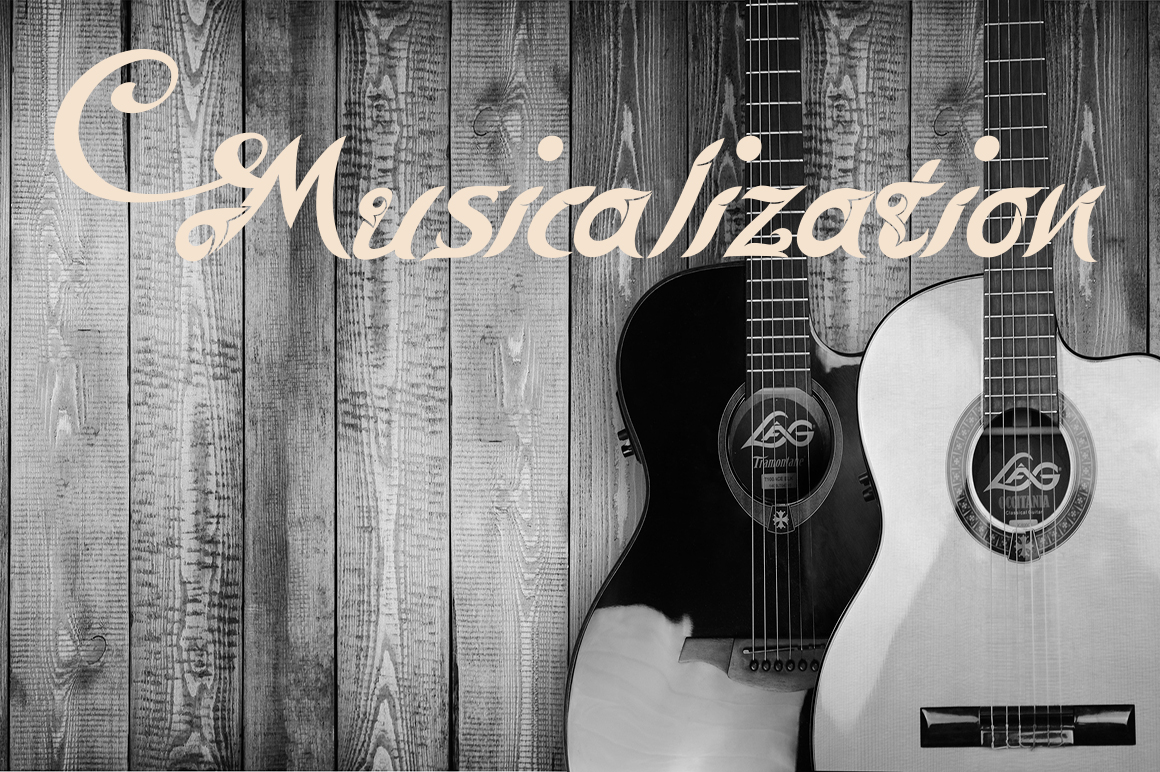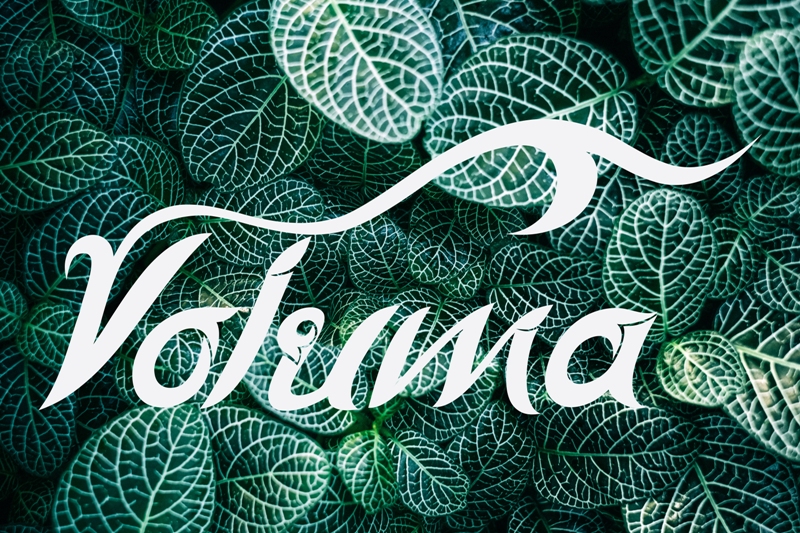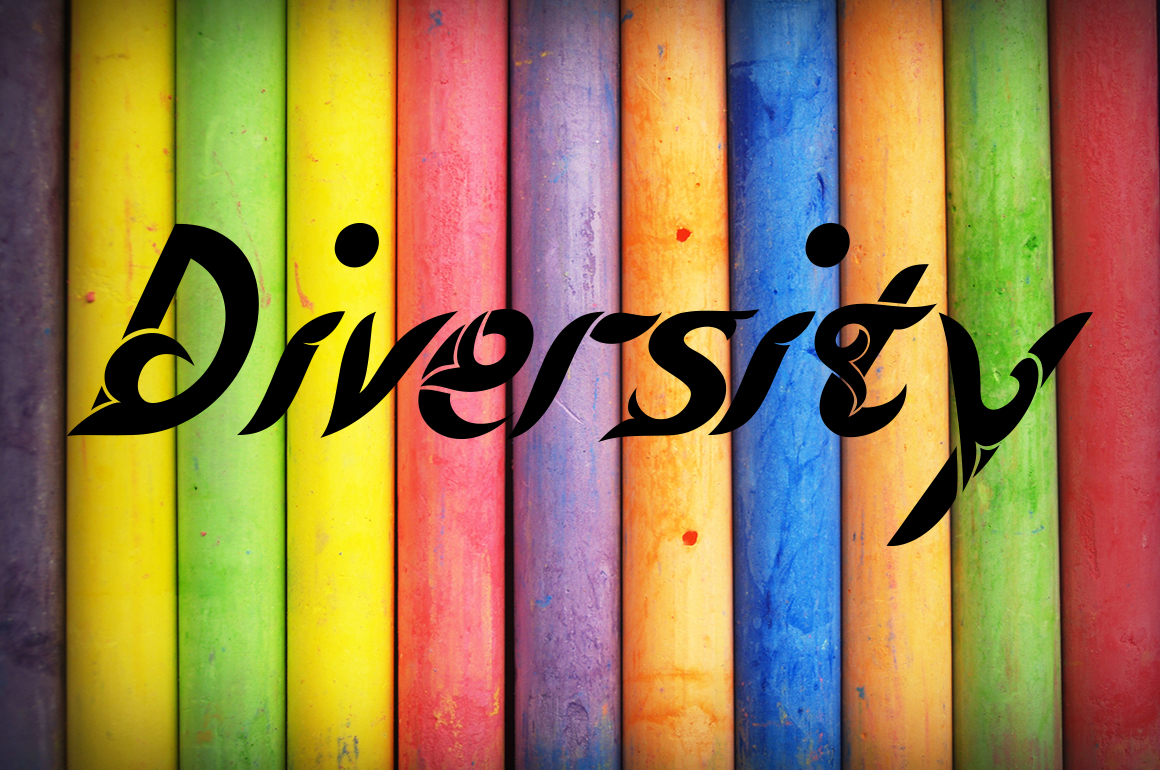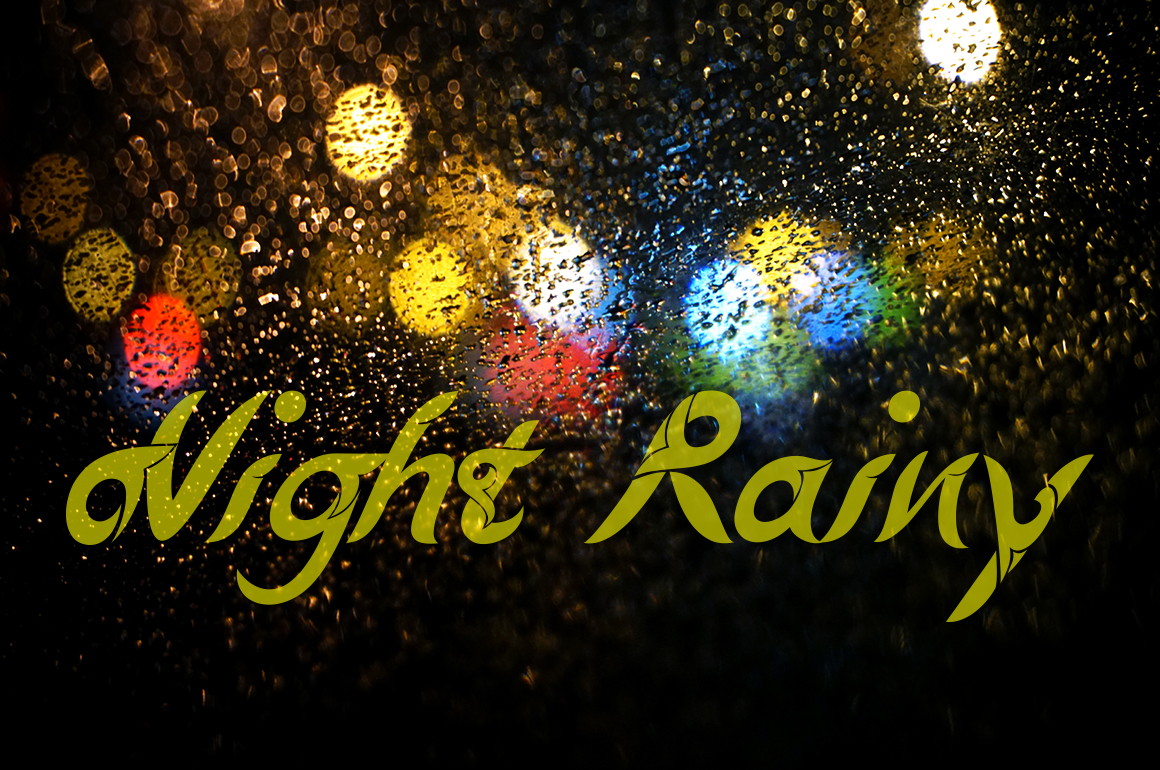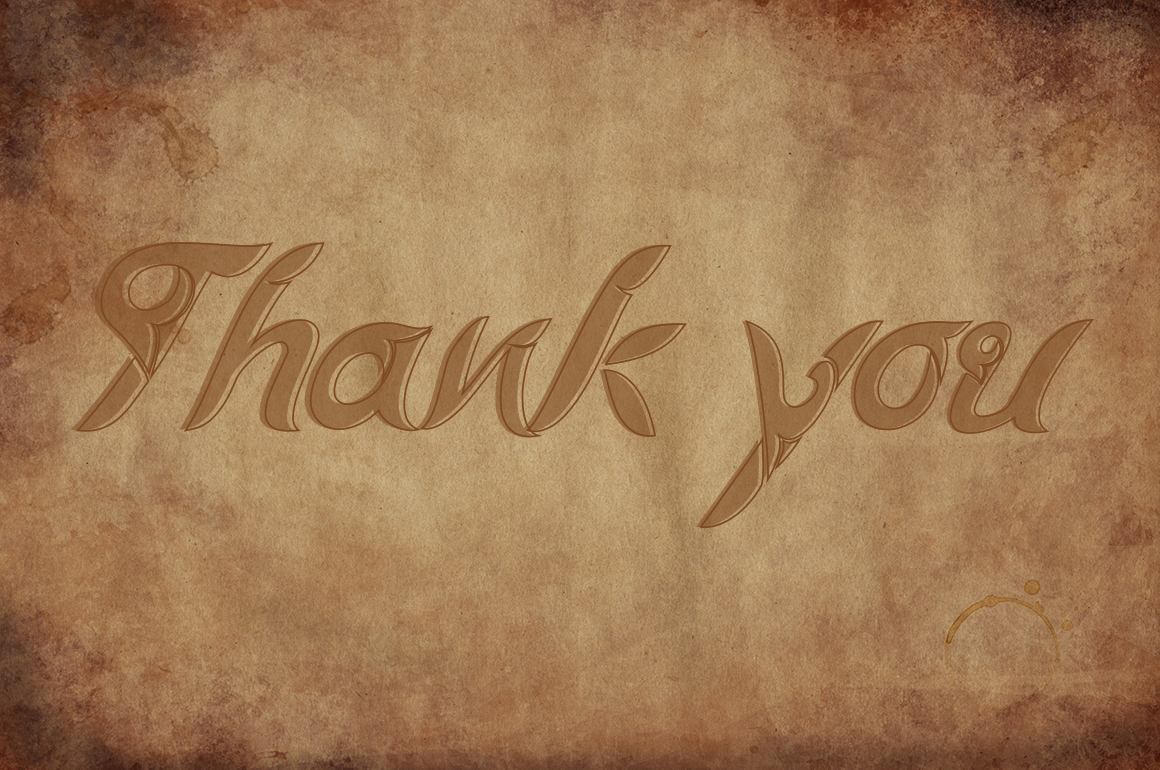
Introducing Artevak Font: The Ultimate Tattoo/Tribal Style Font for Creative Projects
Are you a designer, craftsperson, or artist looking for a unique and versatile font to elevate your projects? Look no further than Artevak Font, a stunning tattoo/tribal style font that’s perfect for a wide range of creative endeavors. In this article, we’ll dive into the world of Artevak Font, exploring its features, benefits, and uses, as well as provide tips and inspiration for incorporating it into your work.
What is Artevak Font?
Artevak Font is a distinctive and eye-catching font designed in the style of traditional tattoos and tribal art. Its bold, edgy lines and unique character set make it an ideal choice for projects that require a touch of rebelliousness, creativity, and self-expression. Whether you’re working on a logo, poster, t-shirt design, or any other type of project, Artevak Font is sure to make a statement.
Key Features of Artevak Font
- Tattoo/Tribal Style: Artevak Font boasts a bold, tattoo-inspired design that’s perfect for creating striking and memorable visuals.
- Unique Character Set: The font features a distinctive character set that includes letters, numbers, and punctuation marks, all designed in the same tattoo/tribal style.
- Versatile: Artevak Font is suitable for a wide range of projects, from logos and posters to t-shirt designs and more.
- Easily Customizable: The font can be easily customized to fit your project’s specific needs, including adjusting size, color, and style.
Benefits of Using Artevak Font
So why choose Artevak Font for your next project? Here are just a few benefits of using this amazing font:
- Adds Edge and Personality: Artevak Font brings a unique and edgy vibe to your projects, helping them stand out from the crowd.
- Perfect for Bold Designs: The font’s bold lines and striking design make it perfect for creating bold, eye-catching visuals.
- Great for Tattoo and Tribal-Inspired Designs: As its name suggests, Artevak Font is ideal for creating tattoo and tribal-inspired designs that are both authentic and stylish.
Using Artevak Font in Your Projects
So how can you incorporate Artevak Font into your projects? Here are a few ideas to get you started:
- Logos and Branding: Use Artevak Font to create a bold and memorable logo that reflects your brand’s personality and style.
- Posters and Flyers: Add some edge to your posters and flyers with Artevak Font, perfect for promoting concerts, events, or products.
- T-Shirt Designs: Create striking t-shirt designs with Artevak Font, ideal for fashion brands, music festivals, or anyone looking for a bold and eye-catching tee.
- Social Media Graphics: Use Artevak Font to create engaging social media graphics that stand out from the crowd and grab attention.
Tips and Tricks for Working with Artevak Font
To get the most out of Artevak Font, here are a few tips and tricks to keep in mind:
- Experiment with Colors: Try pairing Artevak Font with different colors and textures to create unique and eye-catching visuals.
- Adjust Font Size: Experiment with different font sizes to create visual hierarchy and add emphasis to your designs.
- Combine with Other Fonts: Try pairing Artevak Font with other fonts to create interesting and dynamic typography.
Artevak Font is a powerful and versatile font that’s perfect for designers, craftspersons, and artists looking to add some edge and personality to their projects. With its unique tattoo/tribal style design, bold lines, and customizable features, Artevak Font is sure to elevate your work and help you stand out from the crowd. So why wait? Download Artevak Font today and start creating stunning visuals that demand attention!